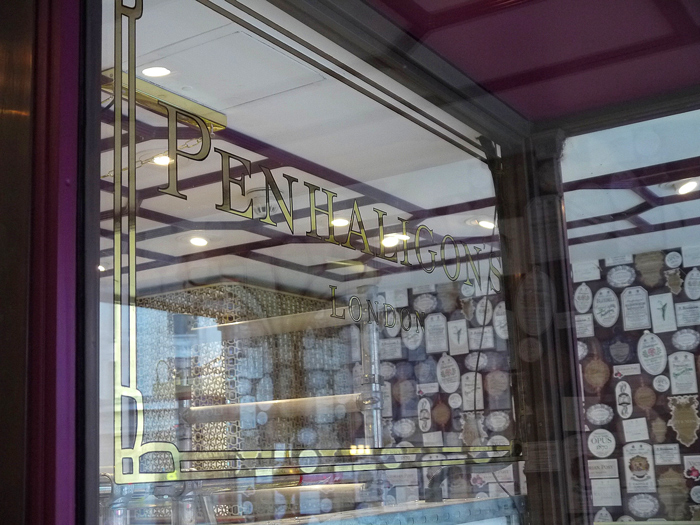
Hey everyone, I'm writing my Dissertation at University on gold-leaf gilding.
I'm looking to include experiences from craftsmen in the trade, I'm lucky enough to be working alongside Nick Garrett here in London. This has given me great insight, but just from one perspective.
I have now used gold-leaf for a variety of clients with Nick; Love-Hate Tattoo Parlor, Raffety Antique Clocks, Crazy Pig Designs hand crafted Jeweler, William Cheshire Jeweler and Penhaligon's Perfumer's.
Dave Smith has also given me insight into his work and his client's, our latest gold leaf work went up next to his work for Burberry in Regents street.
To my understanding through research at the British Library, gold leaf was commonly used at pharmacists, butchers, solicitors offices, churches and schools.
It appears that trends have shifted in clientele. But I cannot ascertain this from my limited experience.
Would anyone else please be able to share the type of clients they have request gold leaf?
Gold leaf to me seems like the perfect option for anyone looking to establish themselves as a long standing business that prides themselves on quality and luxury.
Here's a photo of our latest work, just as some eye candy for anyone interested in this post.
I make hand carved home and property markers. All incised numbers and letters.
I make about 200+ of these signs each year and almost all are gilded with gold and a small percentage want aluminum leaf.
I also make about 20 different decorative ornaments for the signs. All are pierced reliefs and they are gilded too.
Here's one of the larger ones...
and here's are samples on my display...
I've been working on a Funeral Home that requested Gold Leaf.
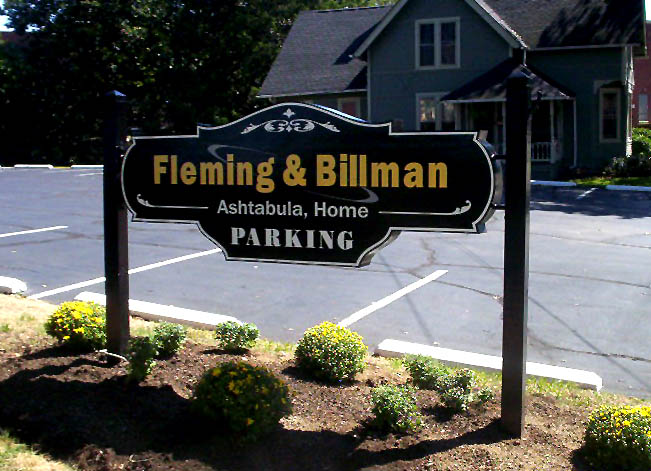
I´m not sure if this is the type you are looking for, but if it counts, I´ve only been gold leafing motorcycles..
Here is some of them.
Joe, you sound like you are very busy making those wonderfully carved signs. You must have a helping hand to produce that volume of work?
Tyler, funeral homes are a new one for me. Thanks for your input.
Marius, the bikes are awesome, the custom bike scene is definitely alive with hand painted lettering and gold leaf. Thanks for sharing that. Do you get lots of international clients coming to you?
I know that this is about 6 months late, but it is a case of money, there are many who would love to have gold leaf signs of any kind. The problem is that they have no idea of the cost and then they settle for a less expensive sign. I found no definite pattern, all types of business and people order gold leaf, even non sign related projects. One unusual one was a large Budda for a religious client, another was the inside of an apartment door completely covered.